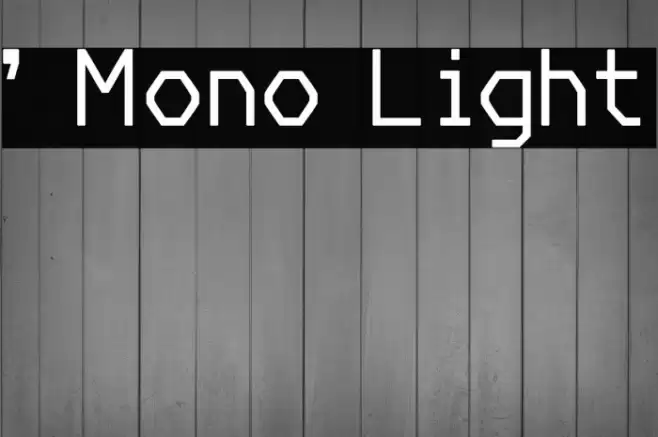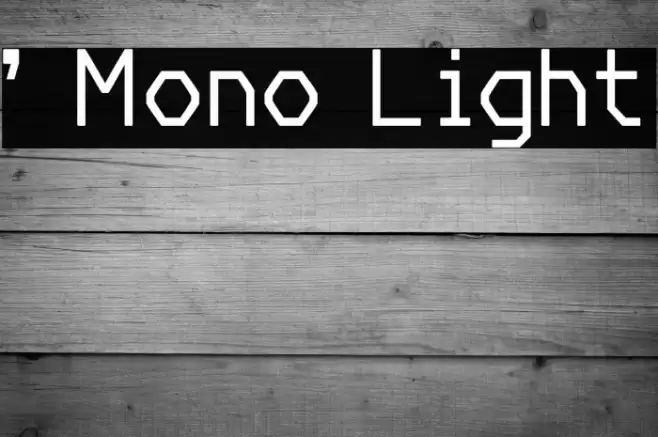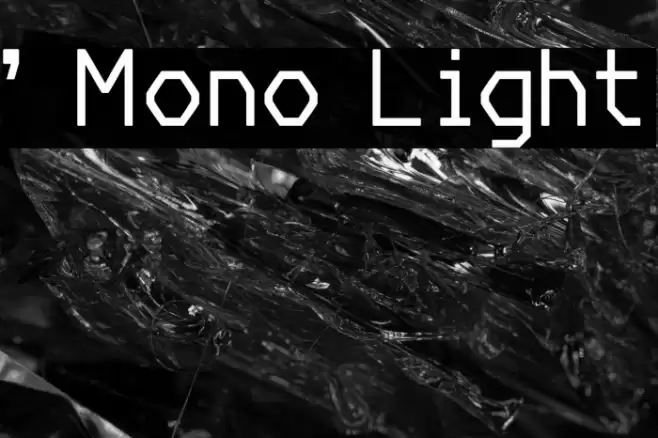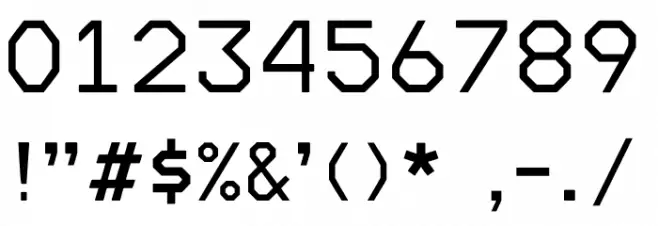
' Mono Light Font
' Mono Light Description
This font features a monospaced design with a clean and modern aesthetic. Each character is evenly spaced, providing a uniform appearance that is ideal for coding and technical documents. The strokes are consistent in weight, offering a balanced and legible look. The geometric shapes of the letters contribute to its contemporary feel, while the simplicity of the design ensures clarity and readability. The font includes a full set of uppercase and lowercase letters, numerals, and a variety of special characters, making it versatile for various applications.
A modern, monospaced font with consistent stroke weight and geometric design from Basic fonts.
- Proposed Projects: Ideal for coding, technical documents, and any project requiring a clean, uniform typeface.
- Use Case: Coding, Technical documents, User interfaces